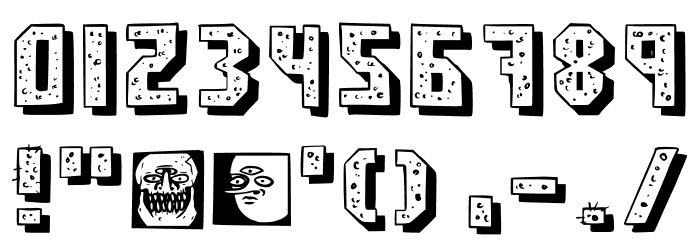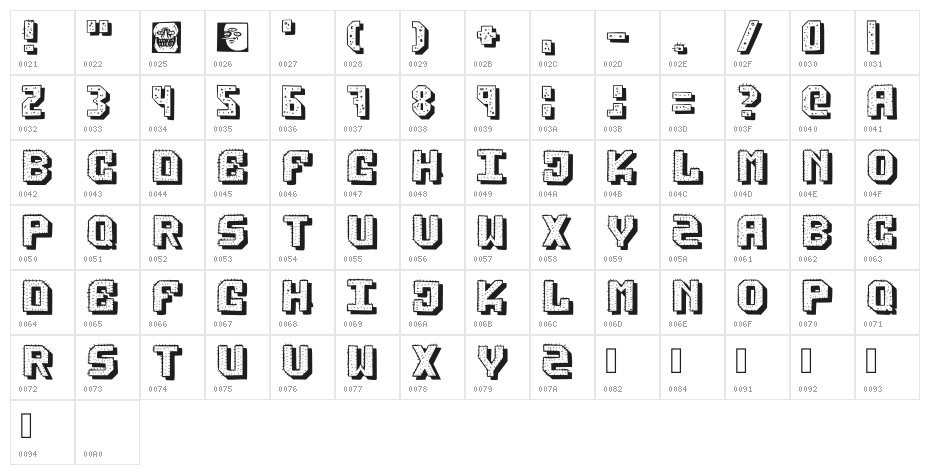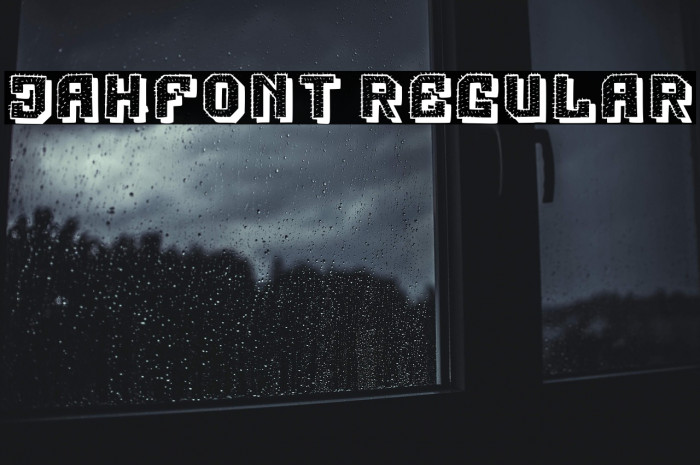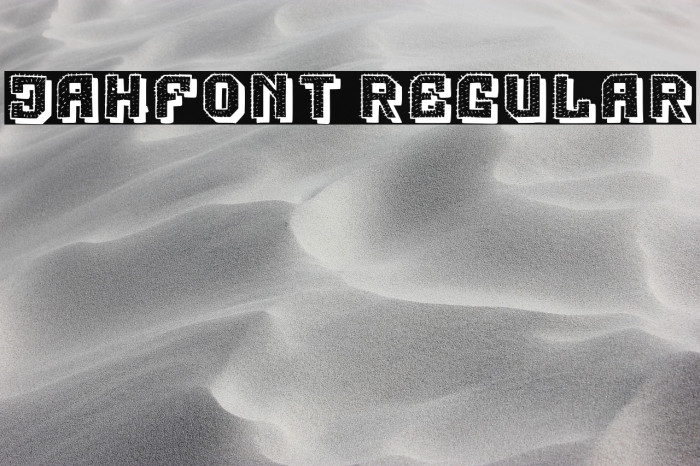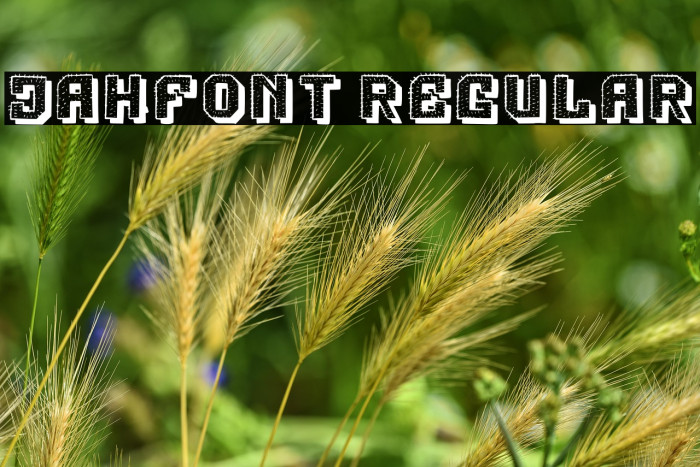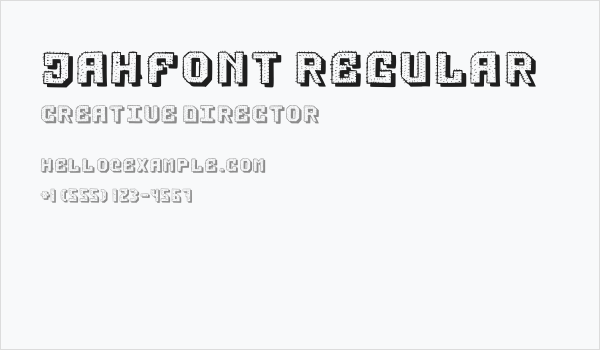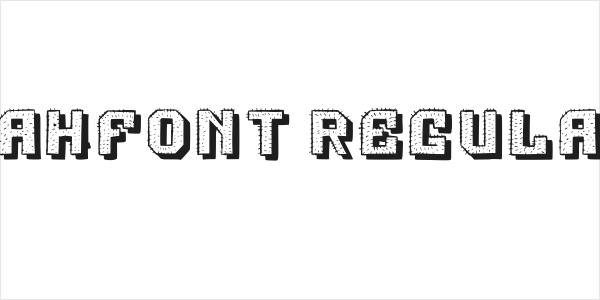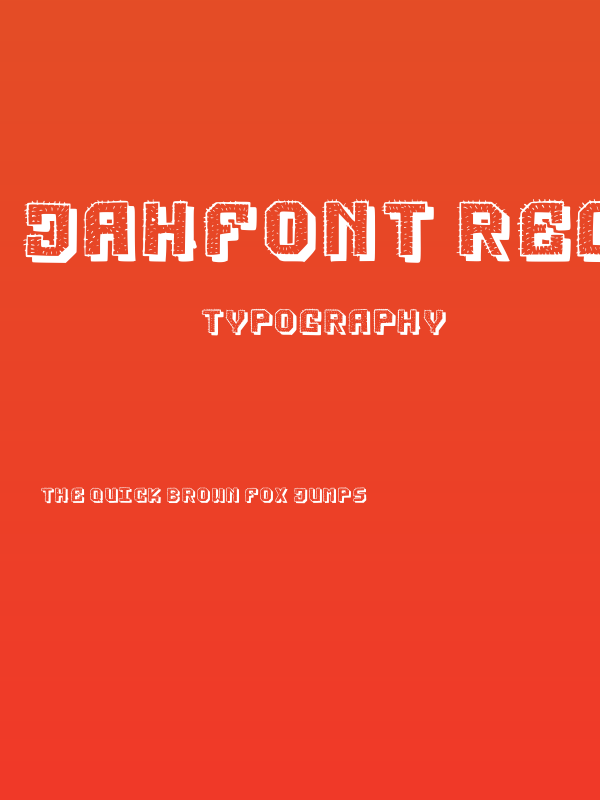
Jahfont Regular Font
Jahfont Regular Description
This font features a bold, decorative style with a playful and artistic flair. Each character is outlined with a thick, shadowed border, giving it a three-dimensional appearance. The interior of the letters is filled with a textured pattern, adding depth and visual interest. The font maintains a consistent height and width across all characters, ensuring uniformity. The numbers and special characters follow the same design principles, making them cohesive with the alphabet. This font is ideal for projects that require a fun and eye-catching aesthetic.
| Proposed Projects | Perfect for posters, album covers, comic books, and creative branding projects. |